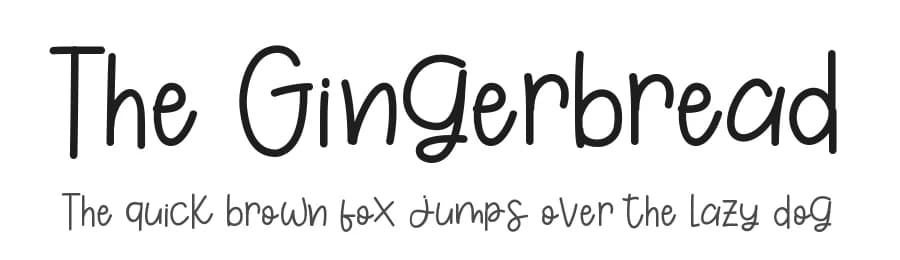
About The Gingerbread Font
The Gingerbread Font is a script font that shines as a display or heading face. Pair it with a clean sans-serif or serif font for body text β the contrast creates a clear hierarchy while the two styles stay balanced and easy to read.
The Gingerbread Font